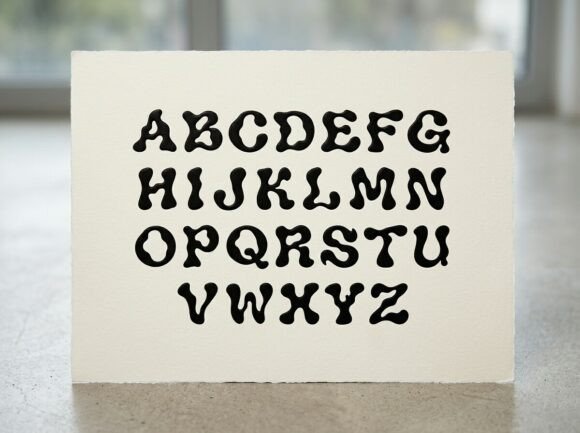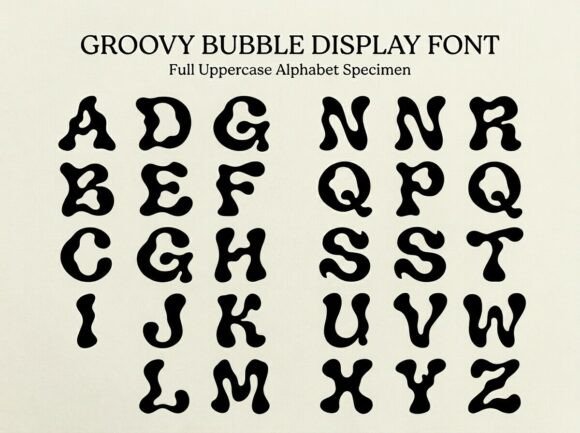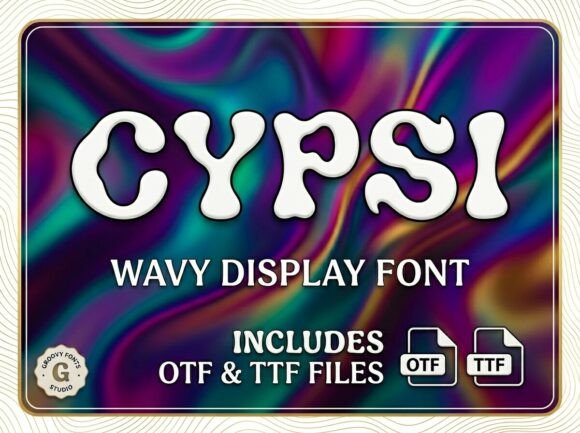
Cypsi Font: A Stunning Decorative Display Font for Creators
Are you tired of using the same old fonts for your designs? Look no further than the Cypsi Font, a unique and artistic display font that’s sure to turn heads. This font is designed to be the center of attention, featuring bold and eye-catching elements that will elevate your creative projects to the next level.
What Makes Cypsi Font So Special?
Cypsi Font is a decorative display font that boasts a strong visual personality. Its unique artistic elements make it perfect for creators who want to break away from the ordinary and add a touch of sophistication to their designs. Whether you’re working on bold headlines, artistic logos, or creative packaging, this font is versatile enough to deliver a professional and polished finish.
Cypsi Font is a dream come true for designers and crafters who want to add a touch of elegance and sophistication to their projects. With its bold and eye-catching design, this font is perfect for:
- Headlines and titles that need to make a statement
- Artistic logos and branding that require a unique touch
- Creative packaging that needs to stand out on store shelves
- Any project that requires a decorative and eye-catching font
Tips for Using Cypsi Font
To get the most out of Cypsi Font, here are a few tips:
- Use it sparingly: Because of its bold and eye-catching design, it’s best to use Cypsi Font sparingly to avoid overwhelming your design.
- Pair it with a simple font: Pair Cypsi Font with a simple font to create a striking contrast that will make your design pop.
- Experiment with colors: Cypsi Font looks great in bold and bright colors, so don’t be afraid to experiment and find the perfect color for your design.
Why Choose Cypsi Font?
So why choose Cypsi Font over other fonts on the market? Here are just a few reasons:
- Unique design: Cypsi Font boasts a unique and artistic design that’s sure to turn heads.
- Versatility: This font is versatile enough to be used for a wide range of projects, from bold headlines to artistic logos.
- Professional finish: Despite its bold and eye-catching design, Cypsi Font still delivers a professional and polished finish.
In conclusion, Cypsi Font is a stunning decorative display font that’s perfect for creators who want to break away from the ordinary. With its unique artistic elements and strong visual personality, this font is sure to elevate your designs to the next level. Whether you’re a designer, crafter, or DIY enthusiast, Cypsi Font is a great choice for anyone looking to add a touch of elegance and sophistication to their projects.